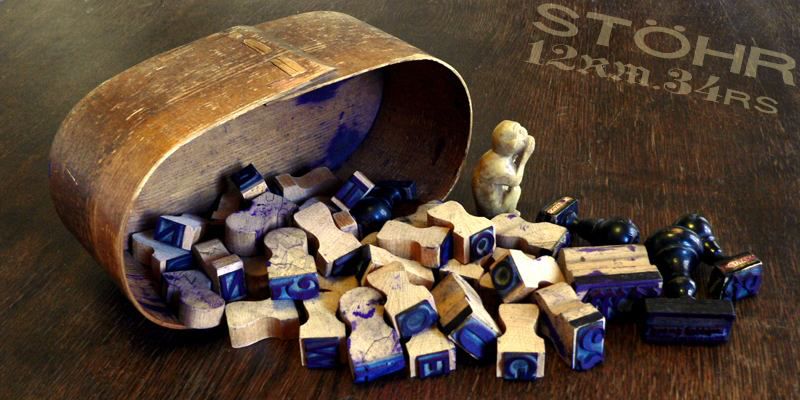
Шрифт Stöhr Numbers
Stöhr (Stoehr) numbers font is made of prints of old stamps and is free for non-commercial use only! If you want to use this font commercially, please contact me at:  to get the information about pricing.